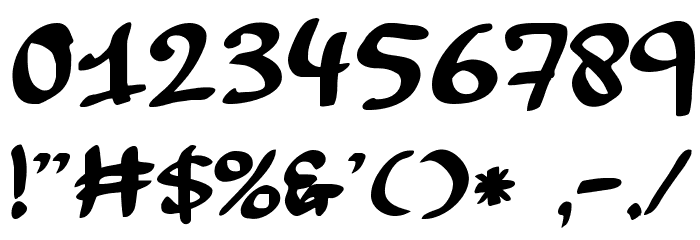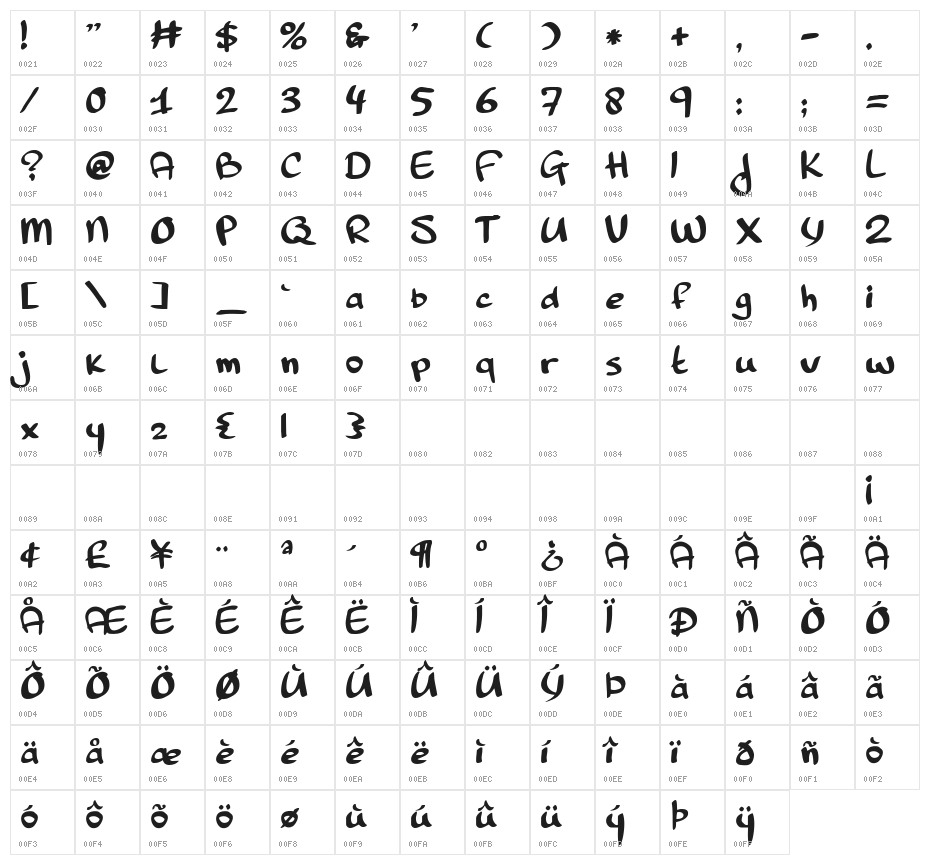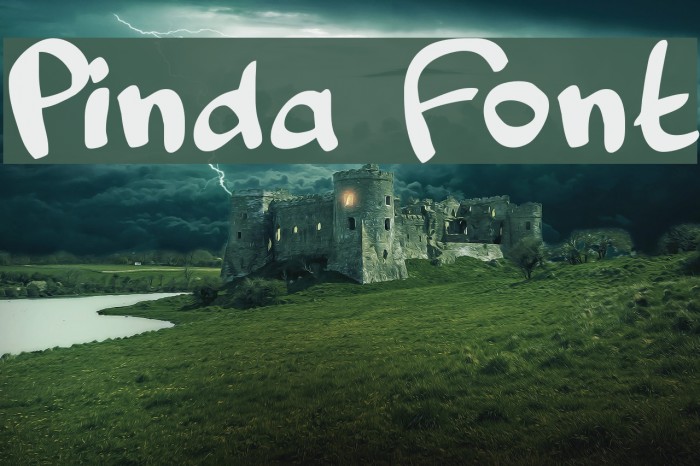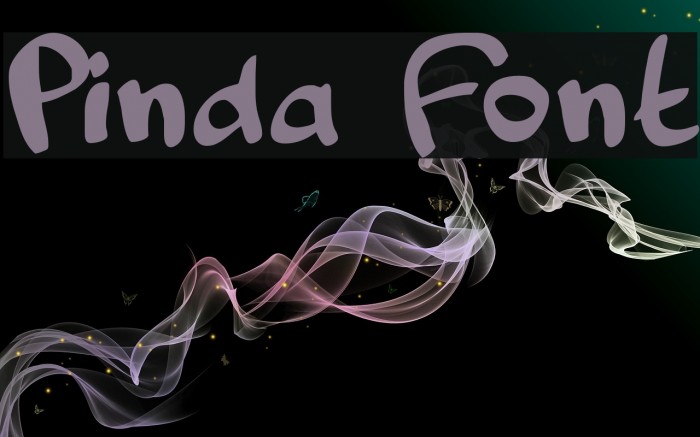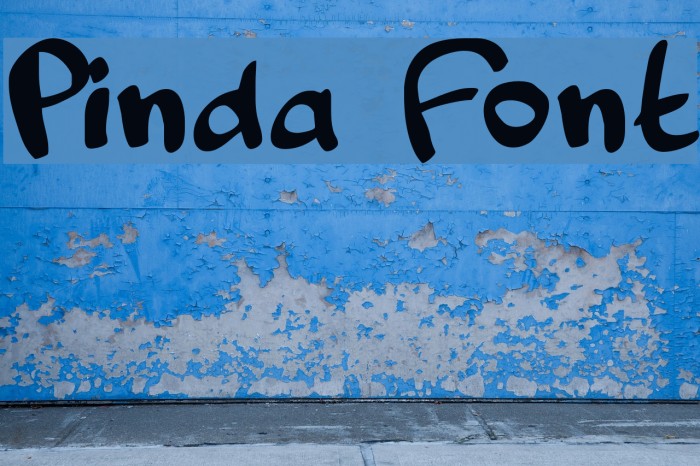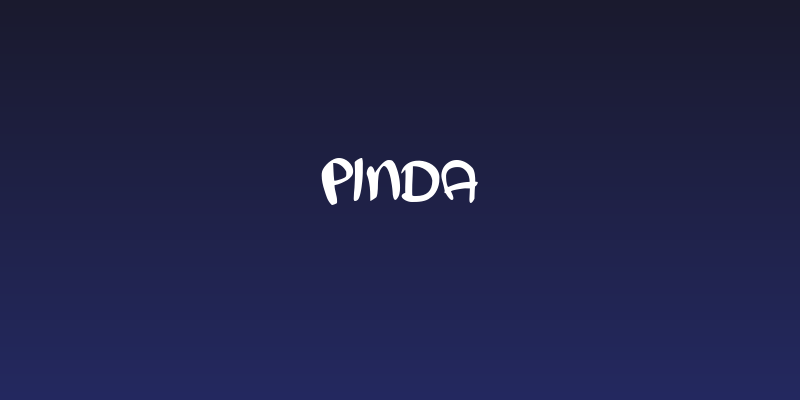
Pinda Font
Pinda Description
This font features a playful and energetic style, characterized by its bold and rounded letterforms. The strokes are thick and consistent, giving it a strong presence on the page. The letters have a hand-drawn quality, with slight variations that add to its charm and uniqueness. The uppercase and lowercase letters are well-balanced, maintaining a cohesive look throughout. The numbers and special characters are equally bold, ensuring readability and visual impact. This font's lively appearance makes it suitable for projects that require a fun and informal touch.
| Proposed Projects | Ideal for children's books, playful branding, posters, and greeting cards. |